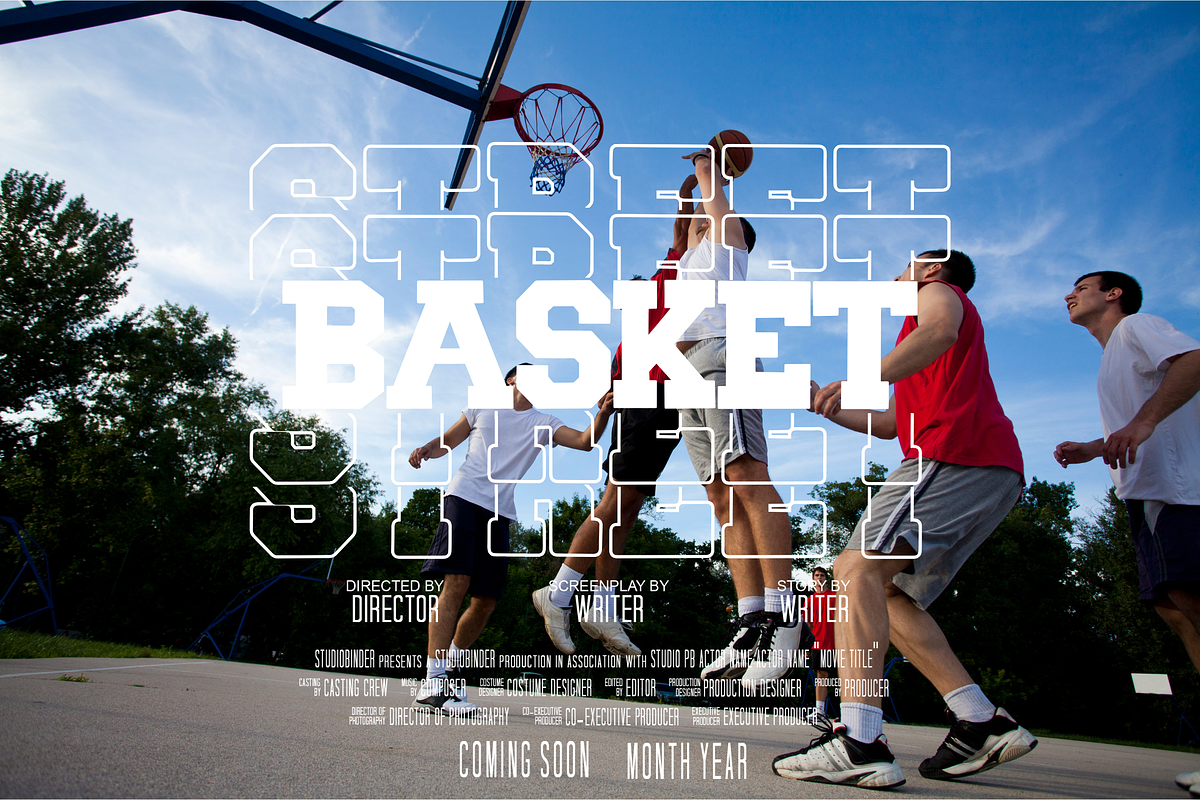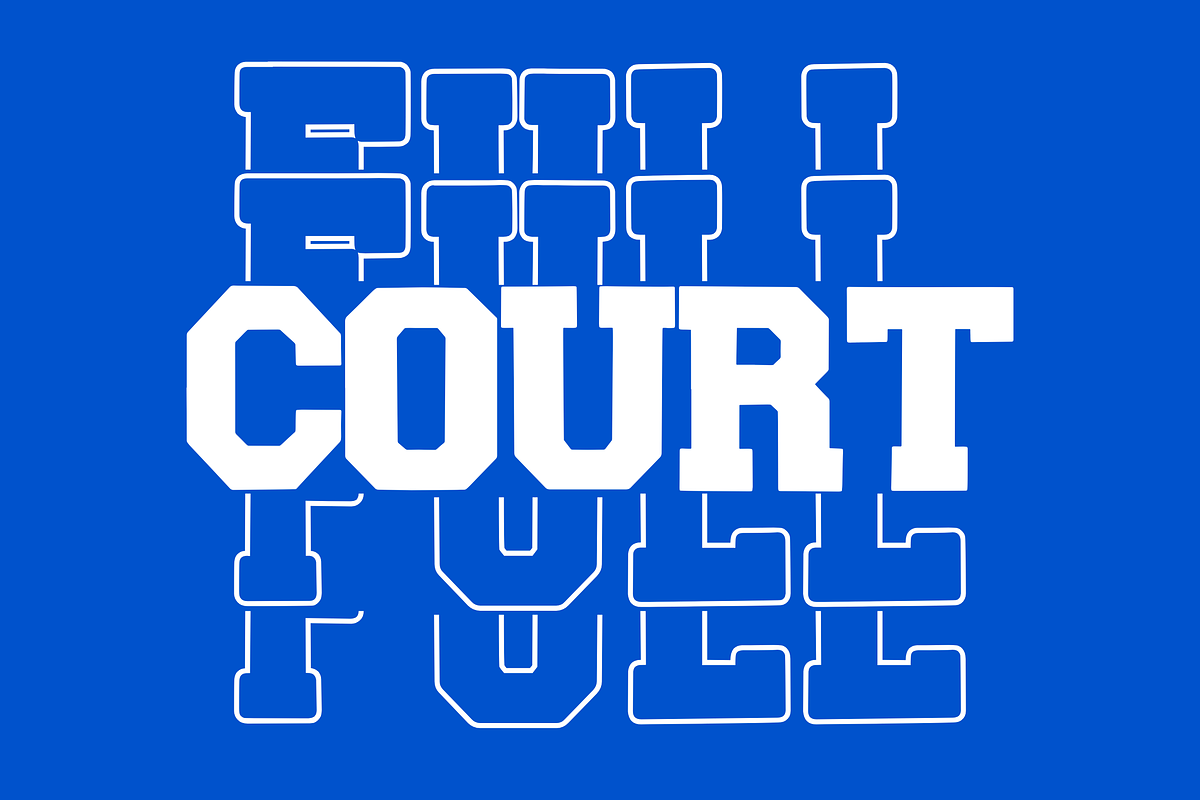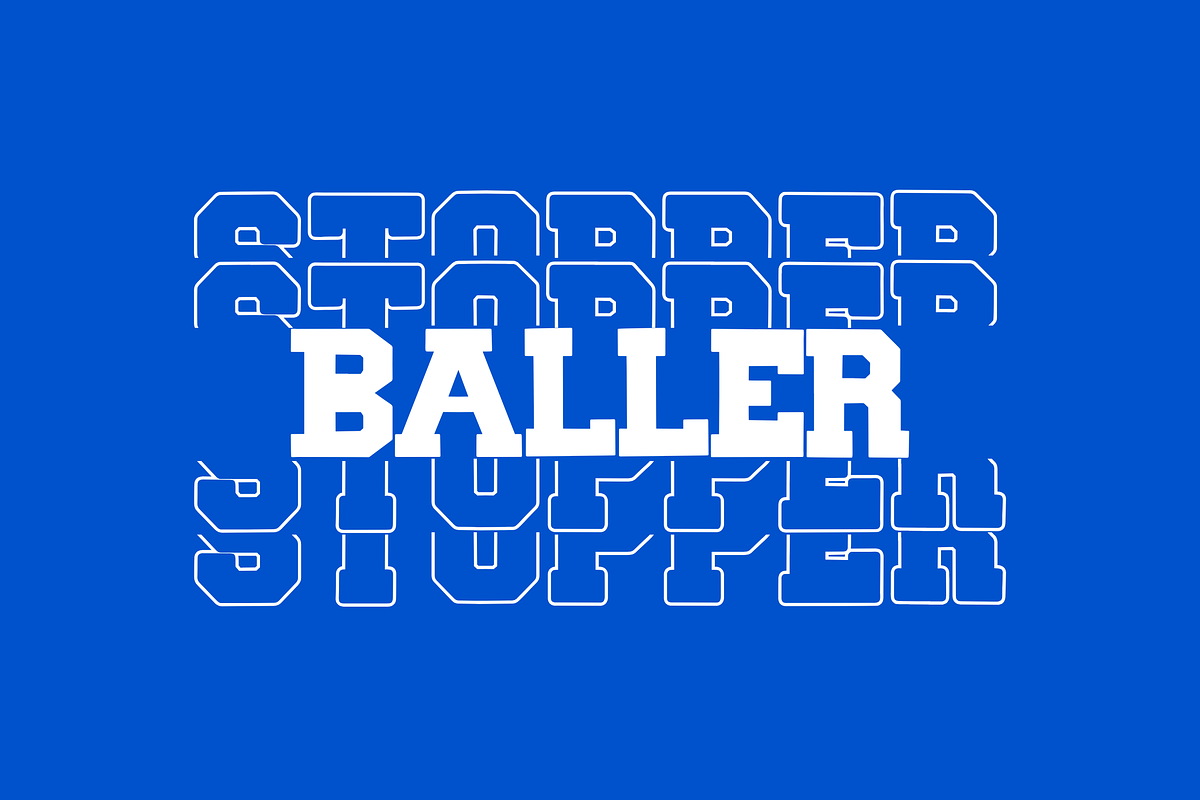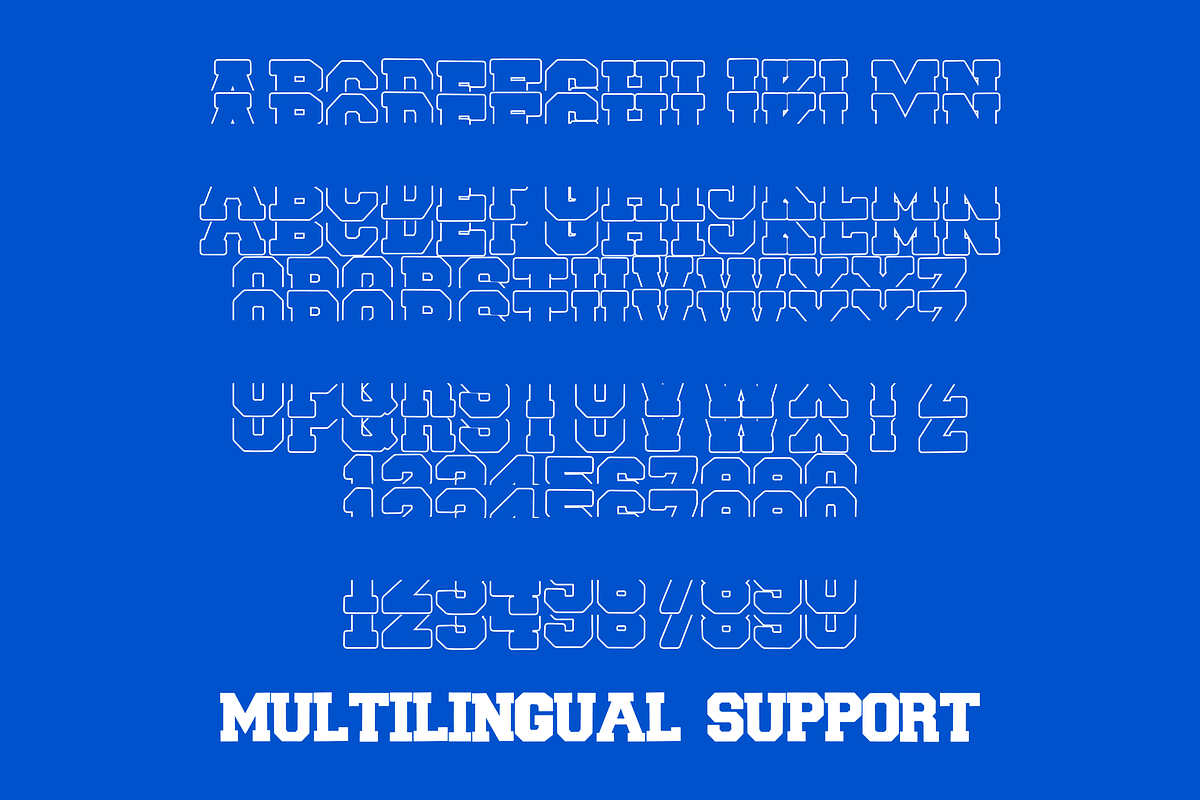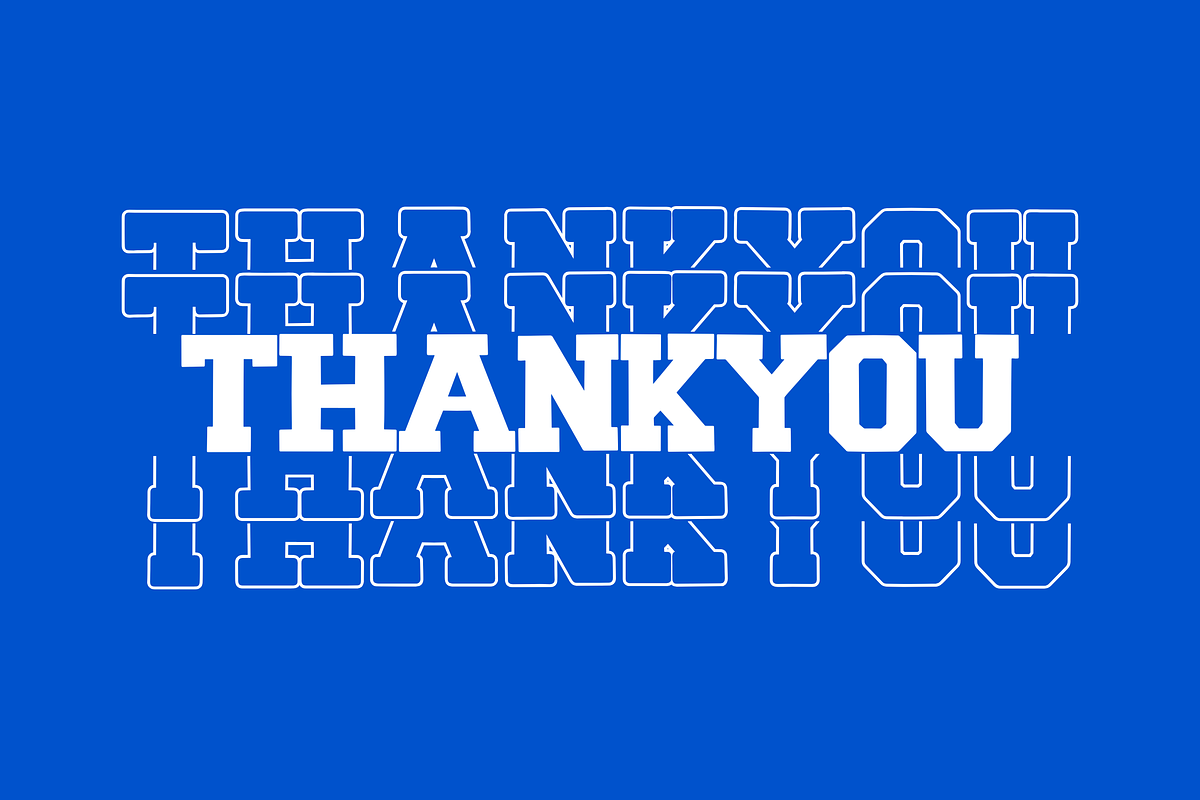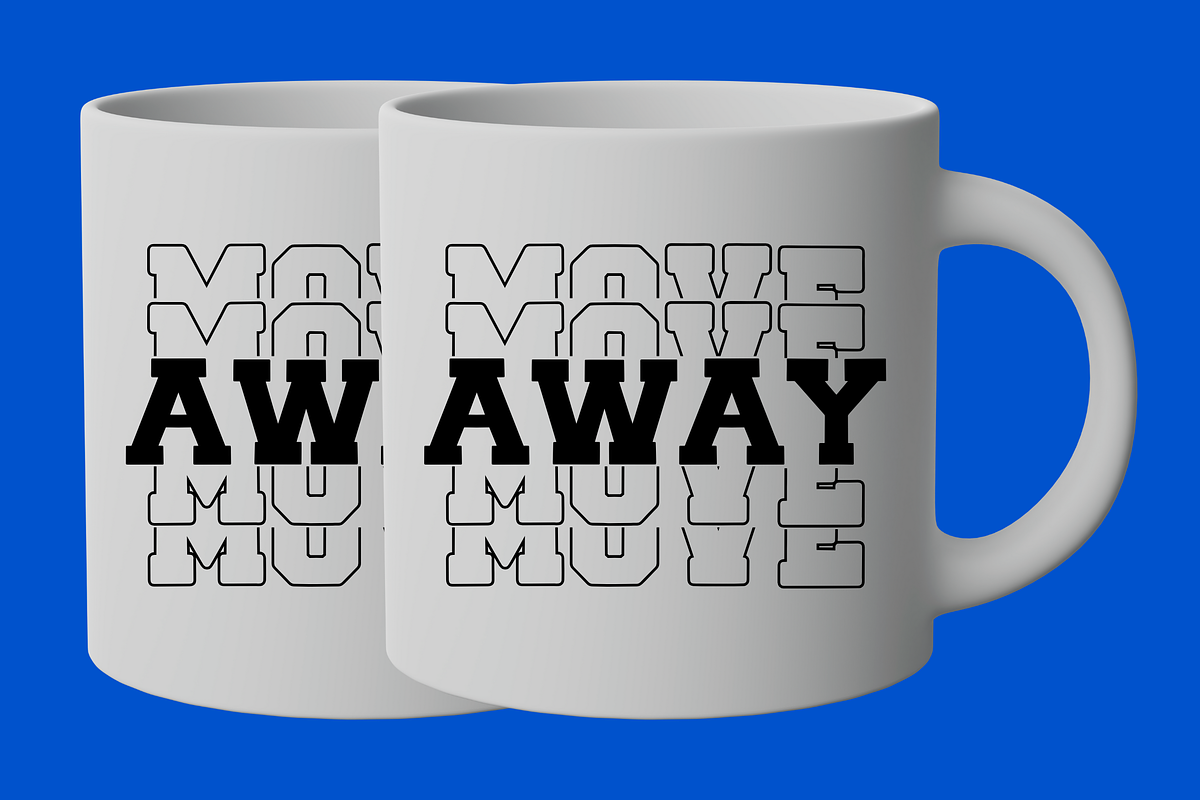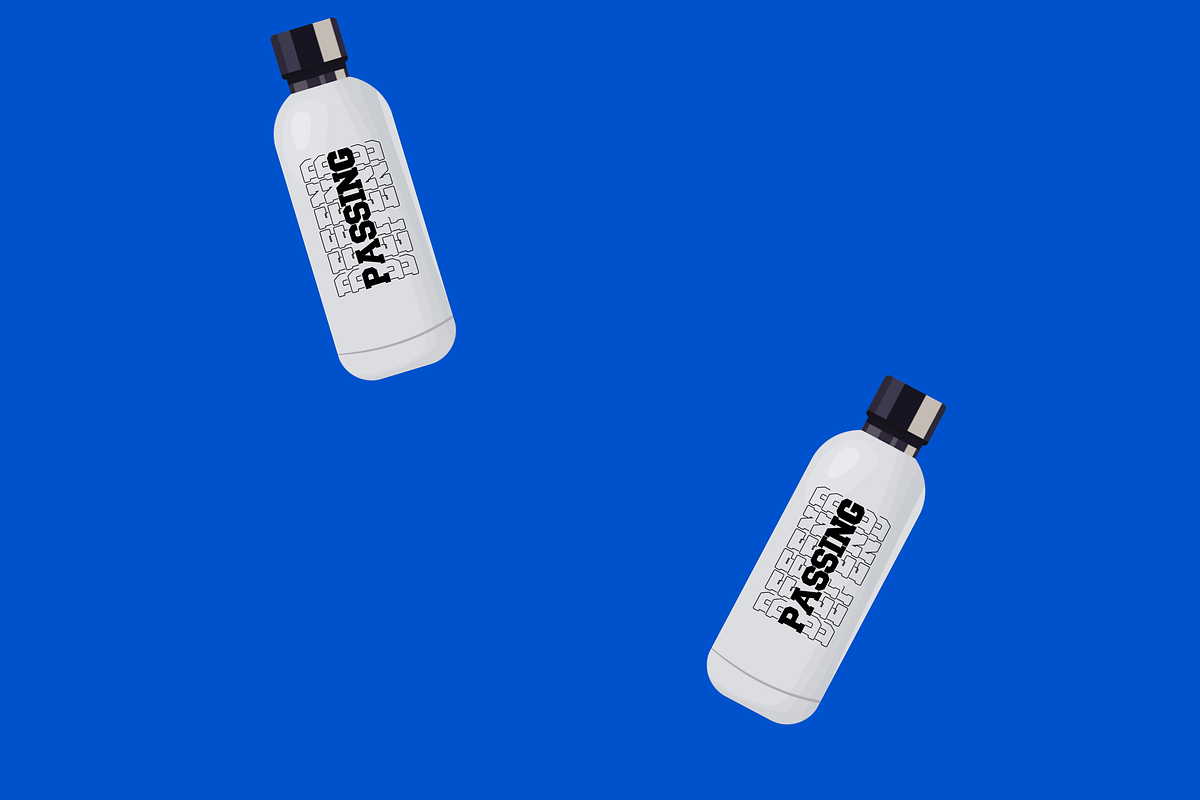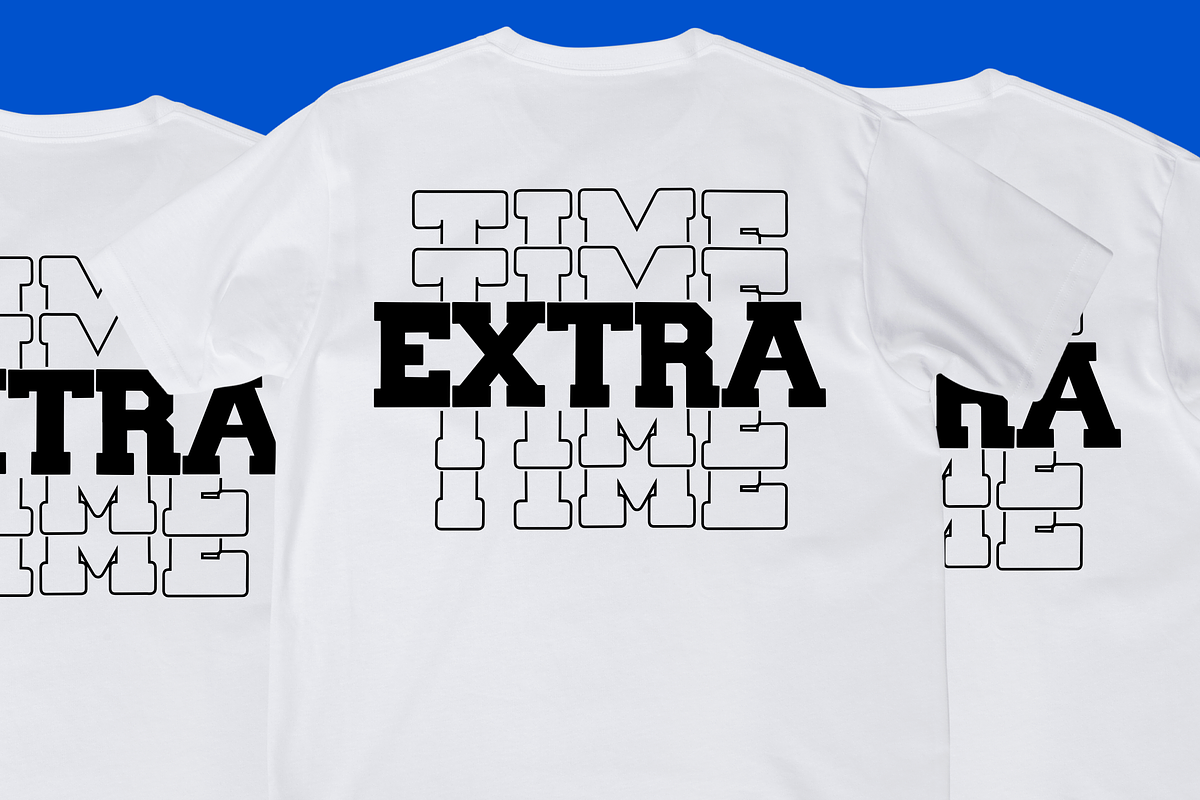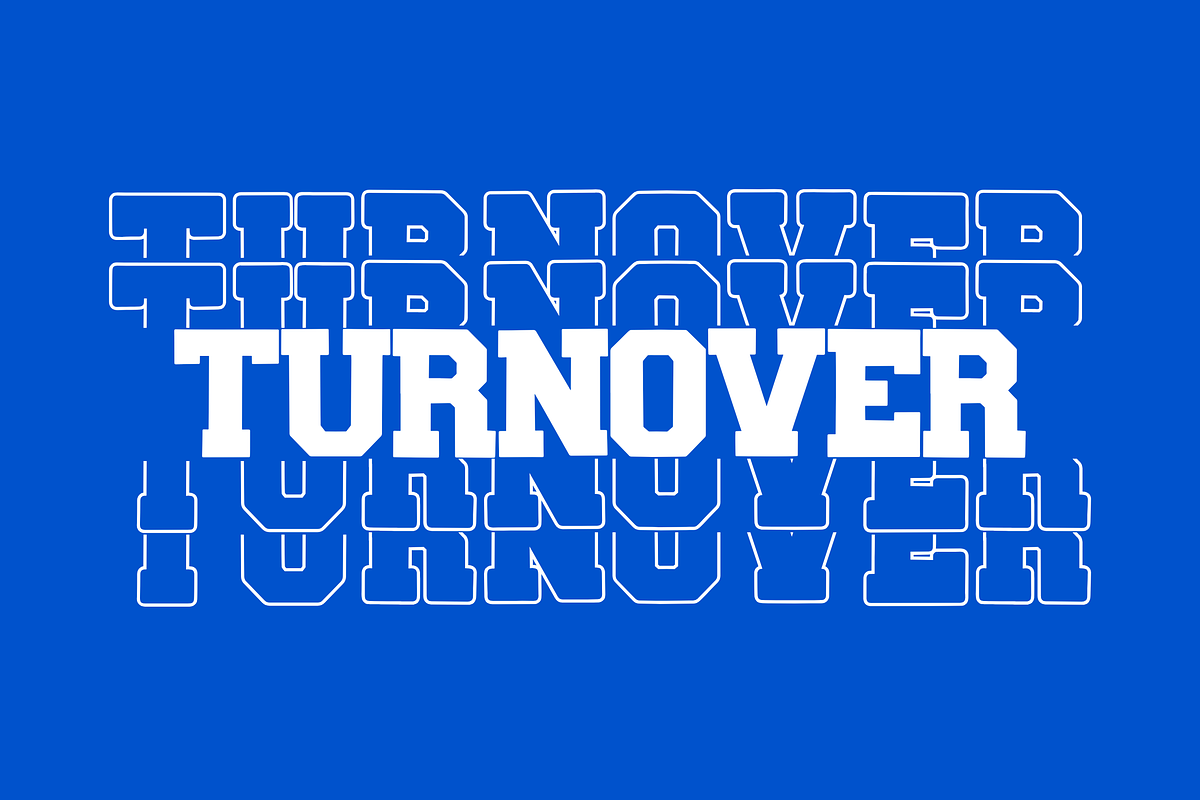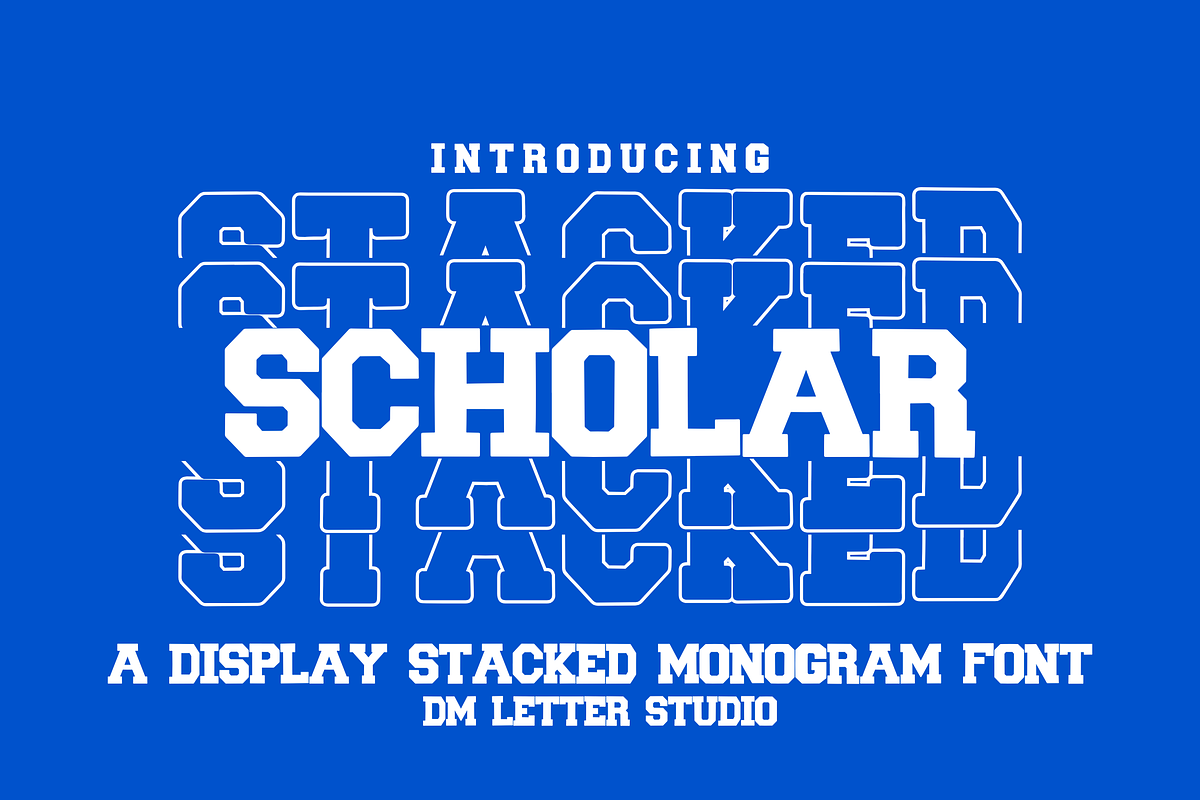
Scholar Stacked Monogram
Scholar Stacked Monogram – All-Caps Varsity Style with Monogram Stacking Twist
Scholar Stacked Monogram is a bold, collegiate-style font that reimagines varsity lettering with a clean, stacked monogram layout. Built to evoke academic pride and athletic tradition, this font blends structured block shapes with vertical alignment, creating a powerful and stylish typeface perfect for school logos, varsity team gear, graduation keepsakes, and student-centered branding.
The focus keyphrase stacked monogram varsity font comes to life in every glyph. Each uppercase letter is crafted for visual impact, layered in a two-line stacked format that adds height and presence to your monograms and initials. Whether you’re working on letterman jacket patches, spirit week shirts, or personalized classroom décor, Scholar Stacked Monogram gives your text a look that’s both bold and scholastic.
Ideal for digital crafters, Cricut or Silhouette users, and small business designers, this font fits a wide range of school-themed projects. It’s particularly well-suited for back-to-school campaigns, academic merch drops, sports team designs, or anything that needs a varsity edge. Pair it with script fonts for contrast, or use it solo for a strong, clean identity.
Whether you're designing varsity jackets or celebrating a graduation milestone, Scholar Stacked Monogram makes your typography feel prestigious, spirited, and totally unforgettable.
Stacked two-line varsity-style lettering
Perfect for monograms, school branding, and spirit wear
Full uppercase, numbers, punctuation, and multilingual support